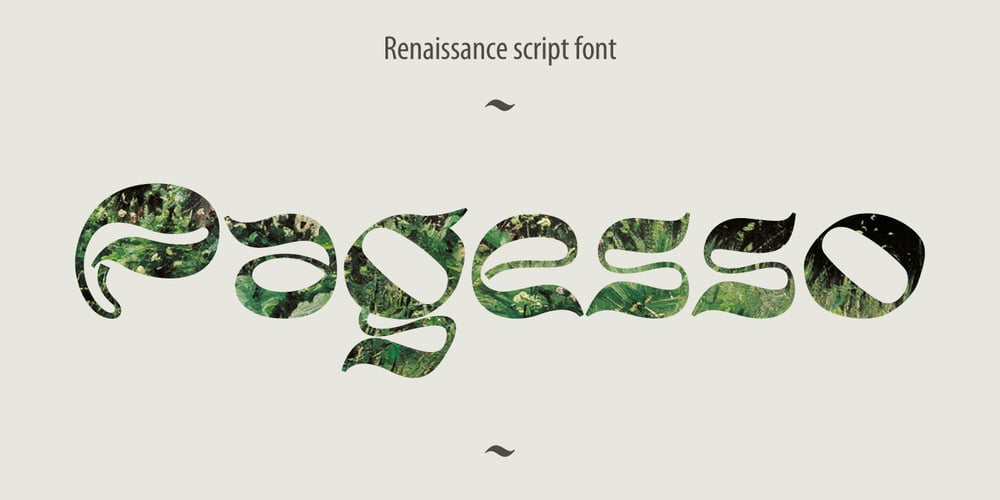
Pagesso
Pagesso font
Pagesso Font Family was designed by Roman Korolev and published by Kaer. Pagesso contains 1 styles and family package options. Introducing my new Renaissance script typeface Pagesso. Vintage font with unique decoration elements. Perfect to use in any fashion labels, glamour posters, luxury identity, etc.What’s included?* Regular style* Uppercase and lowercase* Numbers* Symbols* Punctuation* Multilingual supportIf Pagesso is not ok, please check Sogia https://www.myfonts.com/fonts/kaer/sogia/ or Bronzen font: https://www.myfonts.com/fonts/kaer/bronzen-abundance/I hope you enjoy this font. Follow my shop to receive updates of products and the very hottest news! If you have any question or issue, please contact me: kaer.pro@gmail.com Please request to add additional characters and glyphs if you need! Thank you!